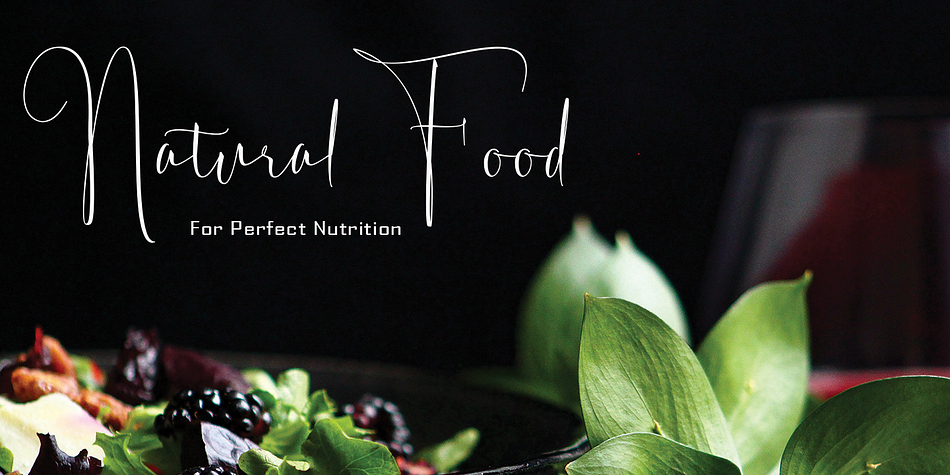
Erlang Duo Style
Erlang Duo Style is a script font family. This typeface has two styles and was published by pollem.Co.
Erlang Script
Erlang Font Script are duo fonts of Erlang Signature and Erlang regular stylish calligraphy that have a varied base line, fine lines, classic and elegant touches. Can be used for various purposes. Such as title, signature, logo, wedding invitation, t-shirt, letterhead, nameplate, label, news, poster, badge etc.
Erlang Script displays alternate characters. Includes initial letters and terminals, alternatives, ligatures and multiple language support.
a font that made the hand by having the character up and down like a dancer. Erlang Font Duo has a very unique style of calligraphy, it is very suitable for use in the work of modern design.